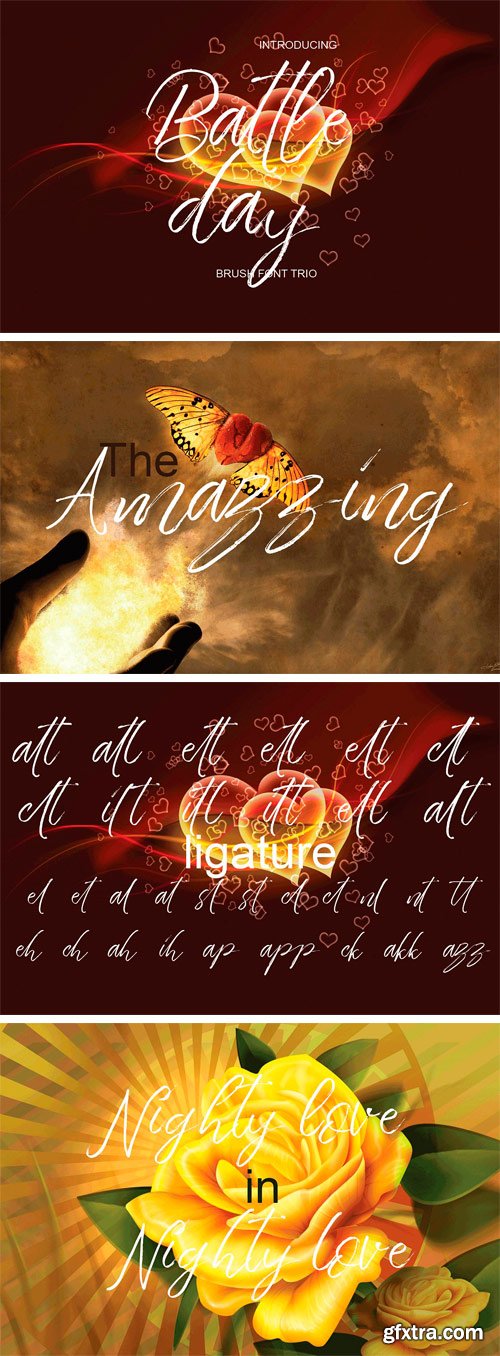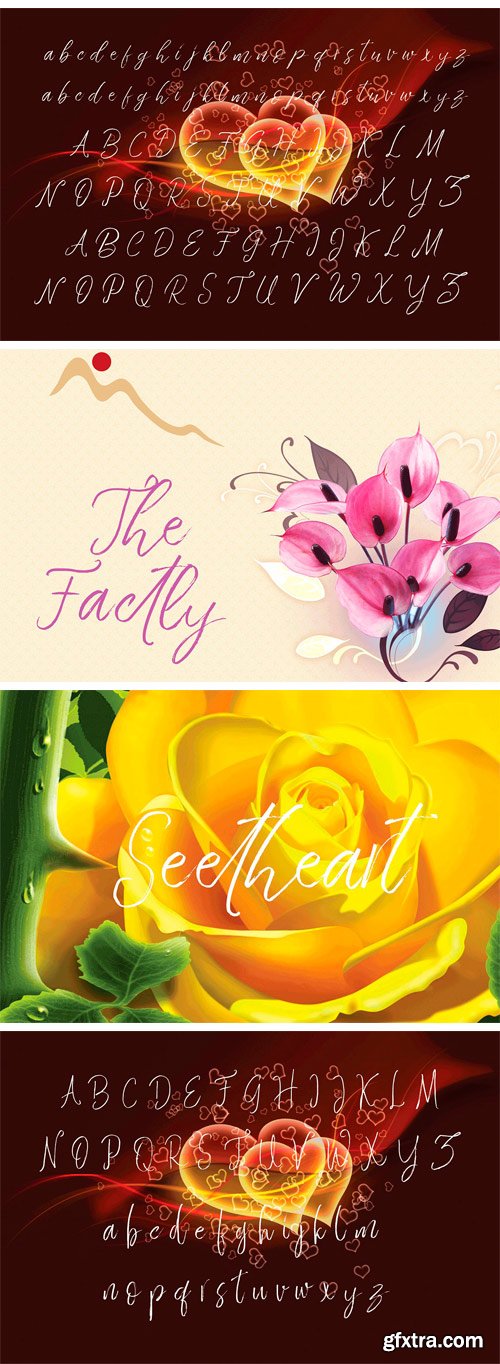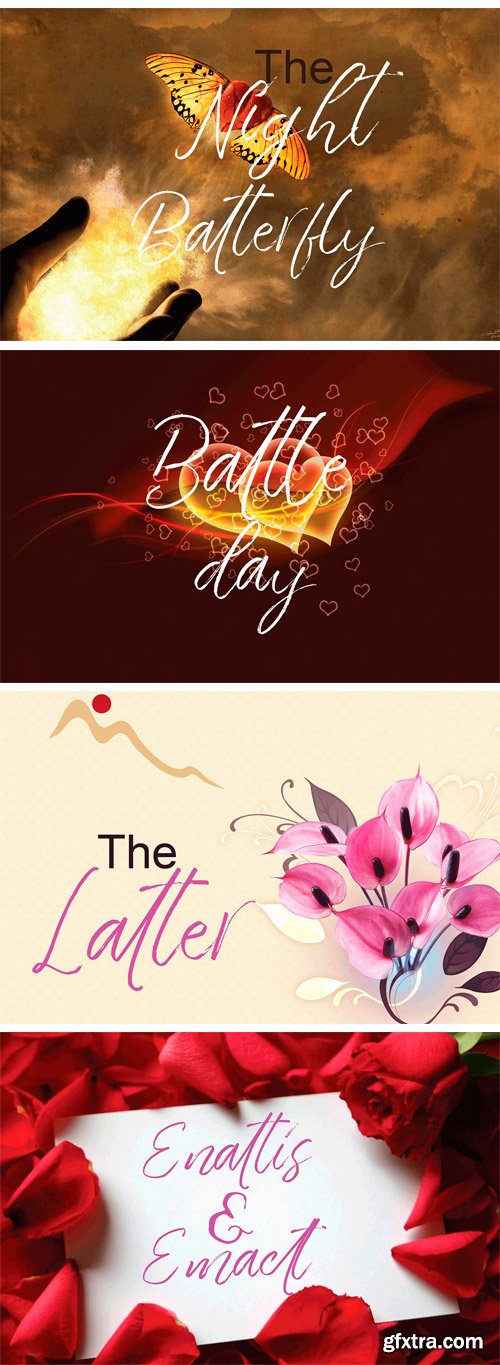
CM - Battle Day Brush Font Trio 2112649
FONT BRUSH is the font style handmade dancing and then live trace to have unique forms of calligraphy, the writing style is very natural, fantastic and unique.